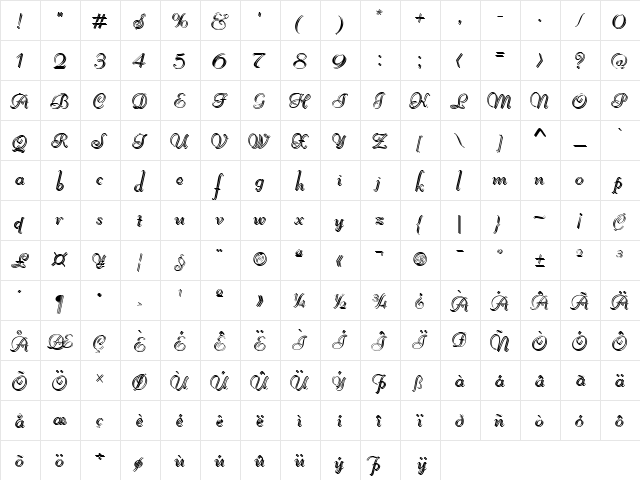
Reliant Shadow Free Regular
Design Context for Reliant Shadow Free Typeface
Reliant Shadow Free brings ornamental detail and strong personality to headlines and identities, where visual impact matters more than quiet functionality.
Font Pairing: Pair with a clean neutral sans-serif for body copy to let Reliant Shadow Free's character lead without overwhelming the composition.
Pro Tip: Use Reliant Shadow Free exclusively at display sizes — it was designed to be seen, not read at length. Let a neutral companion handle body copy.